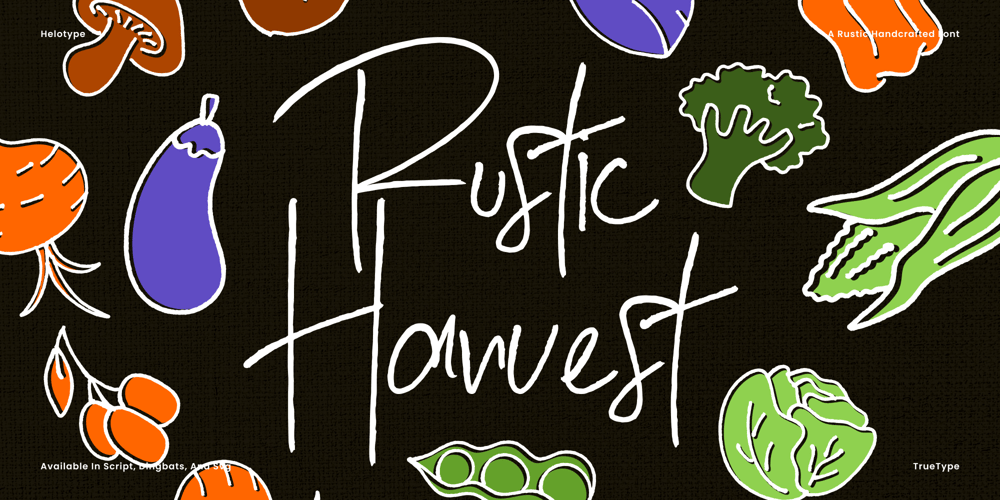
Rustic Harvest Font Family was designed by Yudi Setiawan and published by Wyarecreatype. Rustic Harvest contains 2 styles and family package options. Elevate your designs with the Rustic Harvest Font Family Bundle, featuring a charming handwritten font, a collection of rustic dingbats, and a bonus SVG icon. This comprehensive package offers everything you need to create authentic and inviting designs with a touch of autumnal charm.FEATURES- Uppercase and lowercase letters- Dingbats Font- ligature feature- Numbering and punctuations- Multilingual- Works on PC or Mac- Simple installation- Support Adobe Illustrator, Adobe Photoshop, Adobe InDesign, also works on Microsoft WordHope you like it. Thanks. Helotype